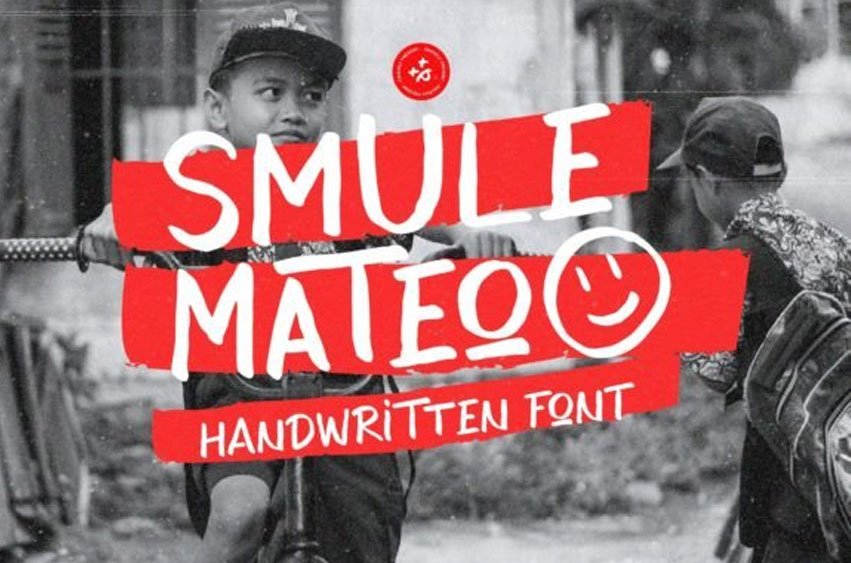
Smule Mateo Font
Smule Mateo Font is a fun, handwritten font that looks playful and casual.
Its friendly, easy-to-read style makes it perfect for adding a personal touch to your designs.